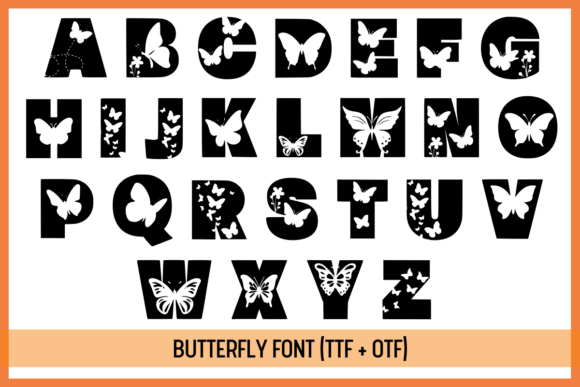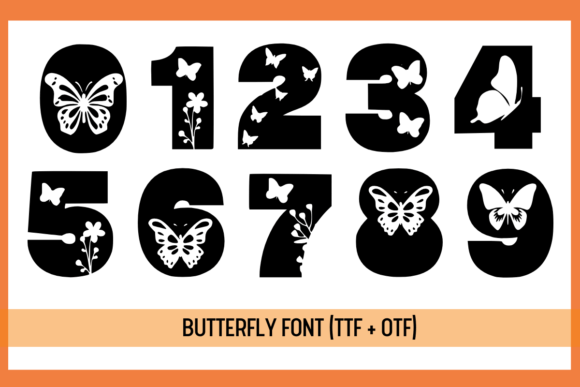
Butterfly Font
Meet Butterfly, a fun and fancy font that’s full of personality! Each letter is filled with the delicate silhouette of a butterfly, adding a touch of whimsy to your designs. Perfect for adding flair to invitations, posters, and more!